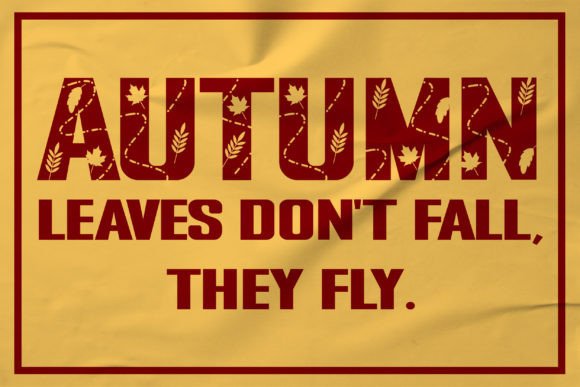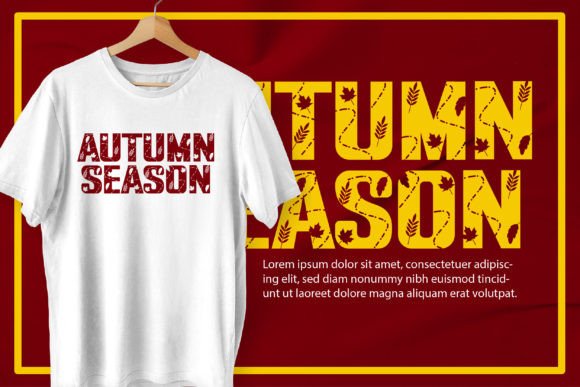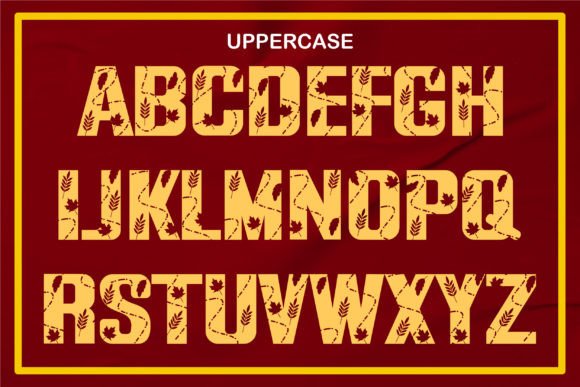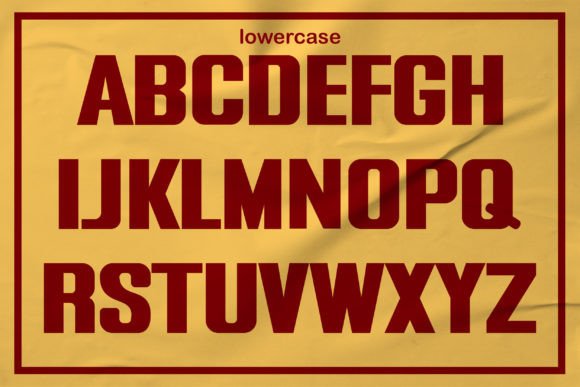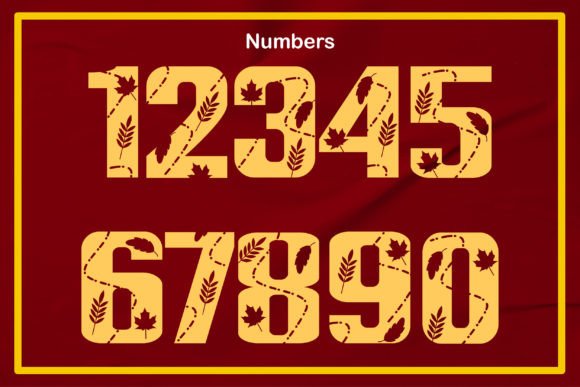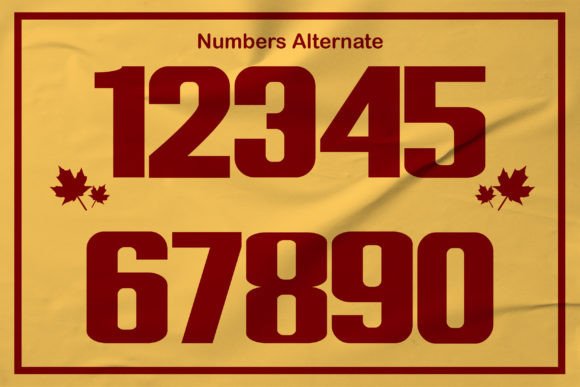
Introducing Fall Bold Font: The Ultimate Autumn-Inspired Typeface
As the seasons change and autumn leaves start to fall, designers and crafters are on the lookout for typography that captures the essence of this beautiful time of year. Look no further than Fall Bold Font, a delightful and charming typeface that embodies the warmth and beauty of fall. In this article, we’ll dive into the world of Fall Bold Font, exploring its unique features, uses, and benefits for designers and crafters.
The Magic of Fall Bold Font
Fall Bold Font is a one-of-a-kind typeface that combines classic bold typography with the whimsical charm of autumn leaves. Each letter is meticulously designed with cascading leaves, carefully crafted to create a sense of movement and fluidity. The result is a font that exudes warmth, coziness, and a deep connection to the natural world.
Perfect for Autumn-Inspired Designs
Fall Bold Font is the perfect addition to any design project that celebrates the splendor of autumn. Whether you’re creating invitations, banners, posters, or social media graphics, this font is sure to infuse your work with the magic of the season. Imagine using Fall Bold Font to create:
- Warm and inviting Thanksgiving invitations
- Eye-catching autumn-themed banners and posters
- Cozy and seasonal social media graphics
- Beautiful and rustic fall-inspired crafts and DIY projects
Key Features of Fall Bold Font
So, what makes Fall Bold Font so special? Here are just a few of its key features:
- Unique Leaf Design: Each letter is adorned with cascading leaves, creating a charming and whimsical effect.
- Autumn-Inspired Color Palette: Fall Bold Font comes with a range of autumn-inspired colors, from warm oranges and yellows to rich browns and reds.
- Bold and Easy to Read: Despite its decorative nature, Fall Bold Font remains bold and easy to read, making it perfect for headlines and titles.
- Scalable and Versatile: Fall Bold Font is designed to be scalable and versatile, suitable for use in a wide range of design projects, from small crafts to large-scale advertising.
Tips for Using Fall Bold Font
To get the most out of Fall Bold Font, here are a few tips and tricks to keep in mind:
- Pair with Neutral Backgrounds: Fall Bold Font works best when paired with neutral backgrounds, allowing the font’s autumnal colors to take center stage.
- Experiment with Colors: Don’t be afraid to experiment with different autumn-inspired colors to find the perfect combination for your design.
- Use for Headlines and Titles: Fall Bold Font is perfect for headlines and titles, adding a touch of whimsy and charm to your design.
- Mix with Other Fonts: Consider mixing Fall Bold Font with other fonts to create a unique and eye-catching design.
Fall Bold Font is a delightful and charming typeface that captures the essence of autumn. With its unique leaf design, autumn-inspired color palette, and bold and easy-to-read style, this font is perfect for designers and crafters looking to infuse their work with the warmth and beauty of the season. Whether you’re creating invitations, banners, or seasonal crafts, Fall Bold Font is sure to become your go-to typeface for all your autumn-inspired design projects.